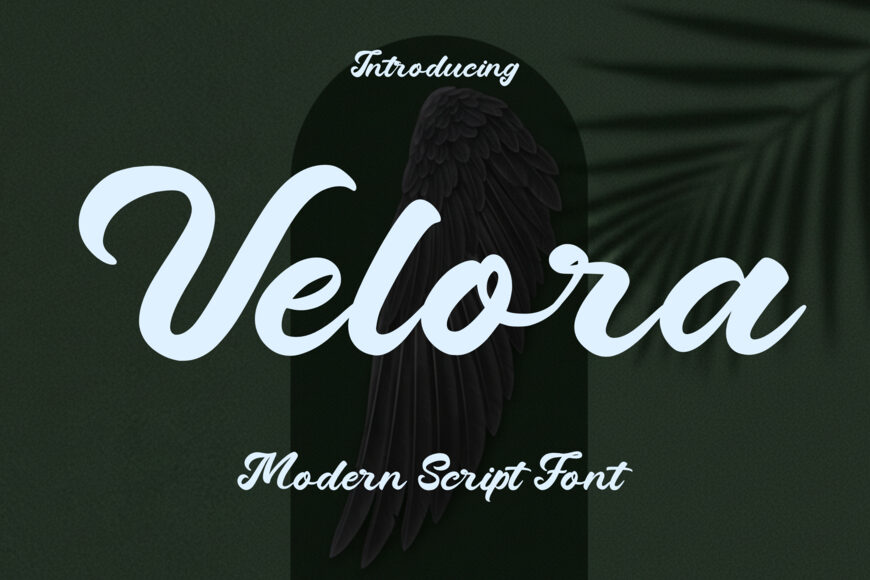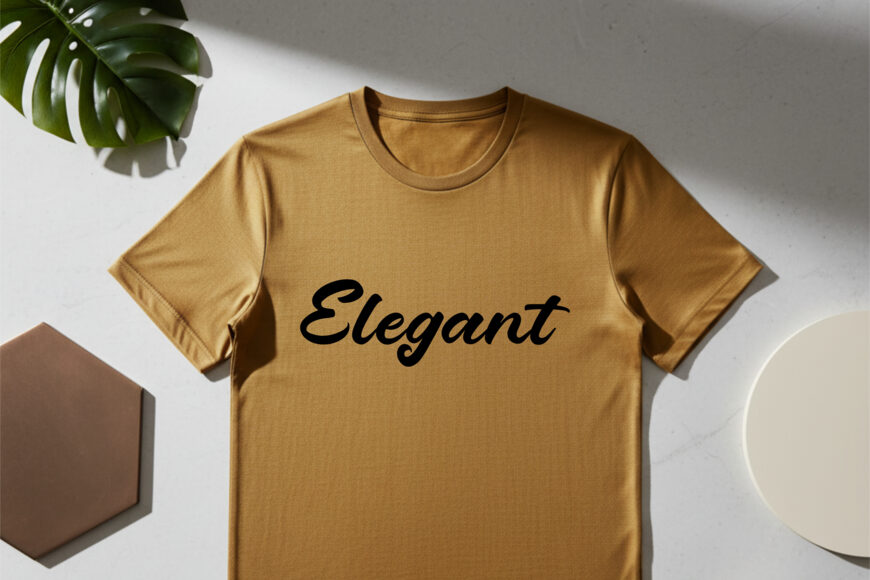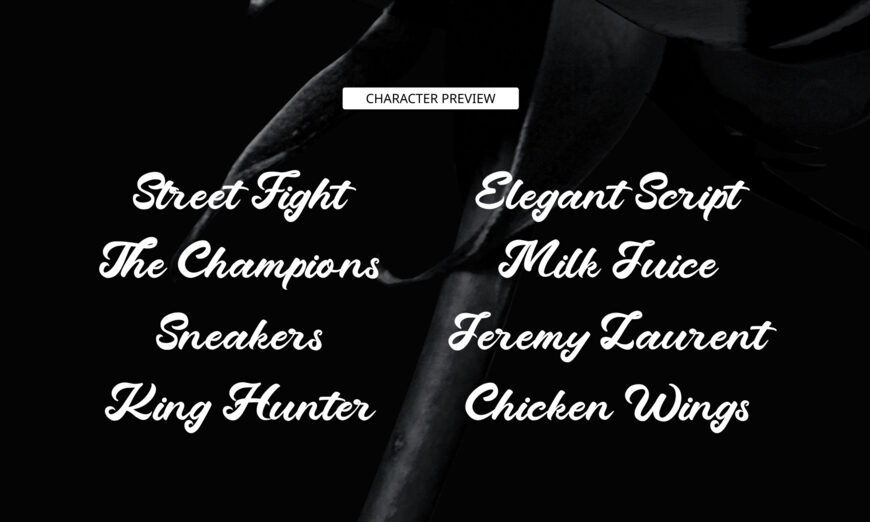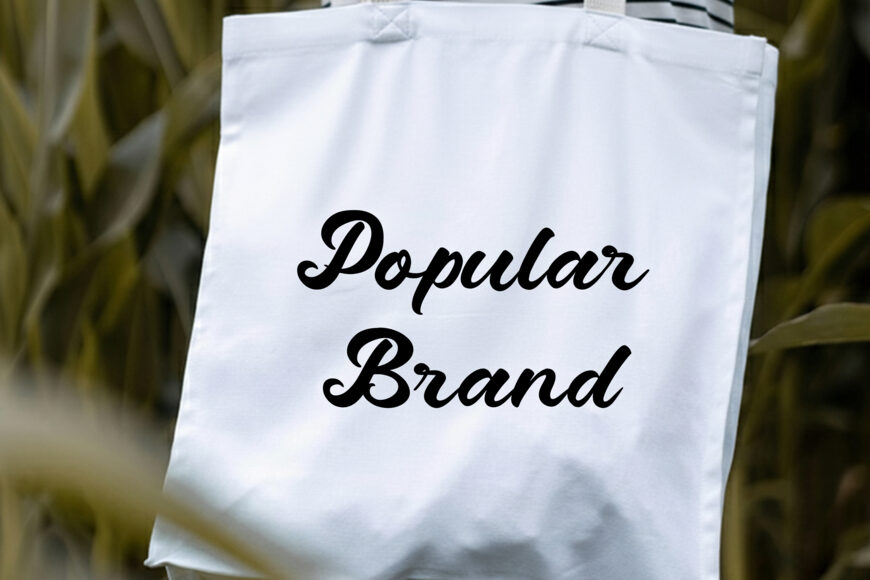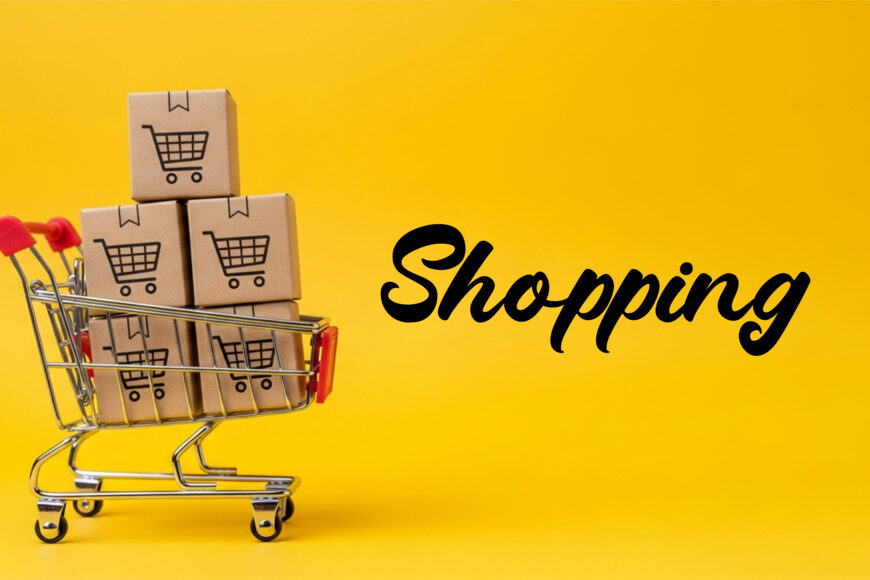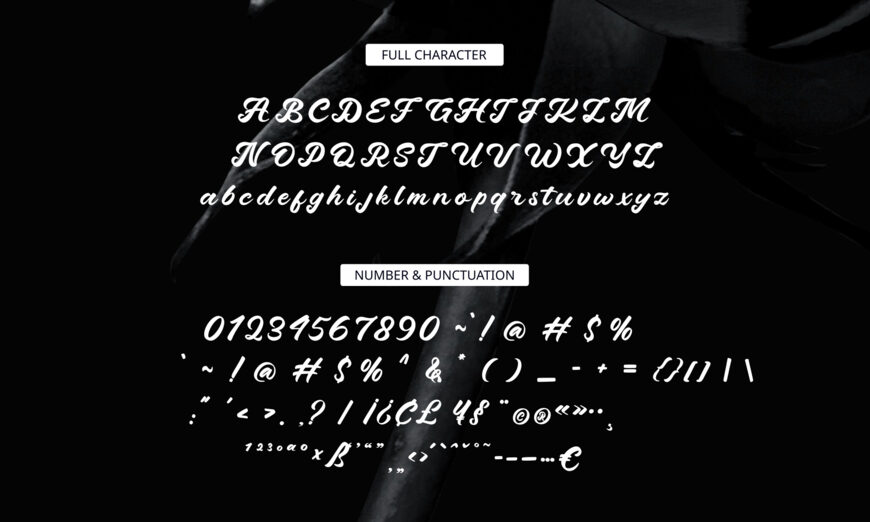
Velora is an elegant calligraphy font by AH Creative, featuring smooth, stylish letterforms with a graceful handwritten feel. Its feminine and modern character makes it a beautiful choice for invitations, logos, branding, social media graphics, quotes, and other creative projects.
With its refined script style, Velora adds a personal and sophisticated touch to designs while maintaining a natural, flowing appearance.